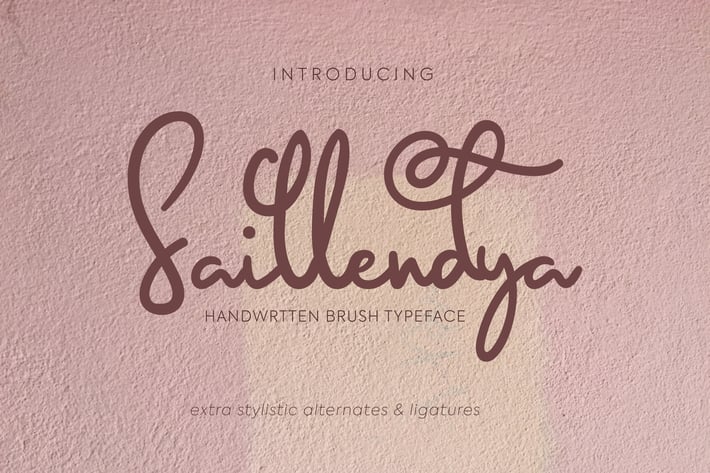
Saillendya | Handwritten Brush Typeface
Saillendya | Handwritten Brush Typeface with a calligraphy style, So beautiful on invitation like greeting cards, branding materials, business cards, quotes, posters, and more!